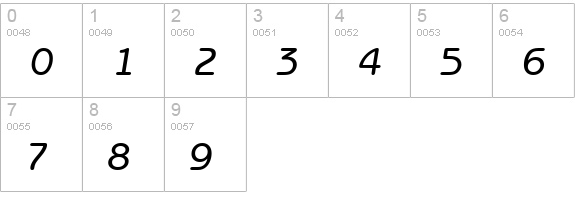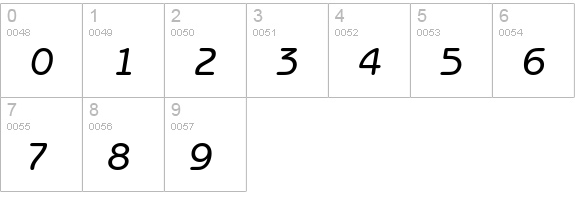
Benjamin-Gothic-Medium-Italic Font Details
Benjamin-Gothic-Medium-Italic is a balanced, medium-weight, italic variant in the Benjamin typeface family \xE2\x80\x94 well suited to sub-headlines, navigation, and balanced editorial work.
Benjamin Gothic Medium Italic font strikes the perfect balance between modernity and elegance. Its sleek and sophisticated design is ideal for adding a touch of refinement to any project. The italicized version of this font brings a dynamic and engaging flair to your text, making it stand out with a subtle yet impactful touch. The Benjamin Gothic Medium Italic font is not only visually appealing but also highly versatile, making it suitable for a wide range of design applications. Whether you're creating invitations, posters, branding materials, or any other design project, this font will elevate your work to a whole new level. Best of all, the Benjamin Gothic Medium Italic font is available for free download at FontsMarket.com. This means you can easily access this high-quality font without any cost, making it a valuable addition to your design toolkit. Don't miss out on the opportunity to enhance your designs with the timeless appeal of Benjamin Gothic Medium Italic font – download it today and let your creativity shine!